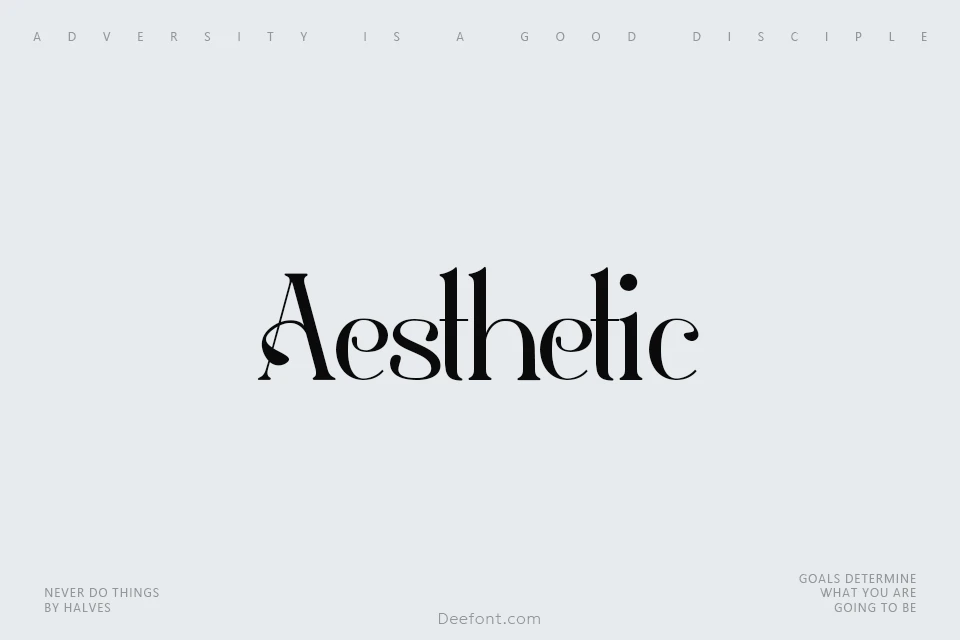
Aesthetic Font
Aesthetic Font: Elevating Designs with Minimalist Elegance
Aesthetic Font is a modern serif typeface characterized by its simple and minimalist aesthetic. It brings a touch of sophistication to any design, infusing it with elegance and clarity. This versatile font is designed to enhance visual appeal, making it perfect for various creative projects. With Aesthetic Font, the only limit is your imagination, as it seamlessly integrates into diverse design contexts, brightening up each composition with its refined style. Its understated yet impactful presence ensures that your designs stand out with effortless charm.